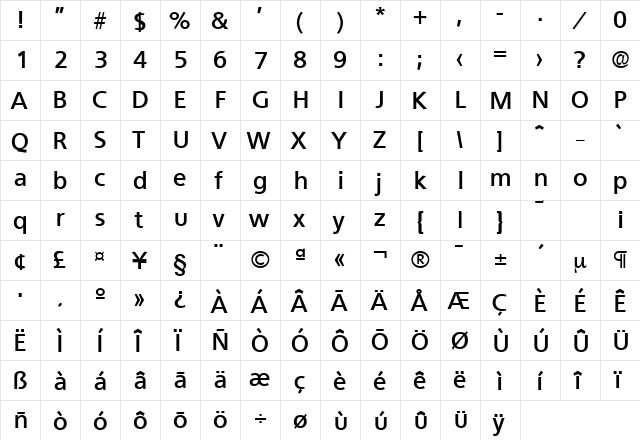
Quebec-Serial Bold
Design Context for Quebec-Serial Typeface
Quebec-Serial is a composed and adaptable typeface that performs quietly and consistently across a wide range of design contexts. The heavy weight commands attention and anchors typographic hierarchies.
Pro Tip: Pair Quebec-Serial with a font of contrasting weight or personality to build a more expressive typographic hierarchy.